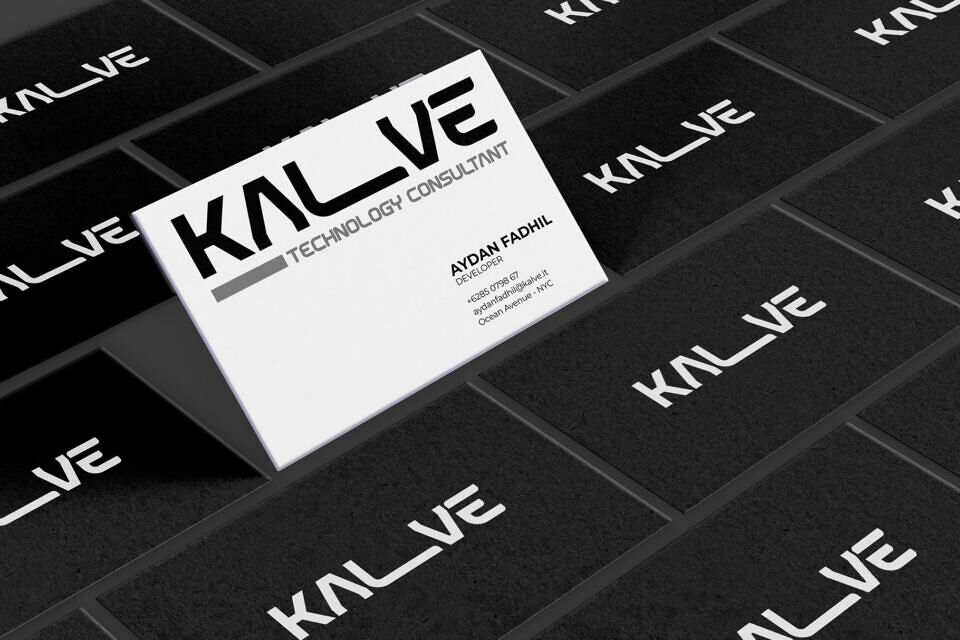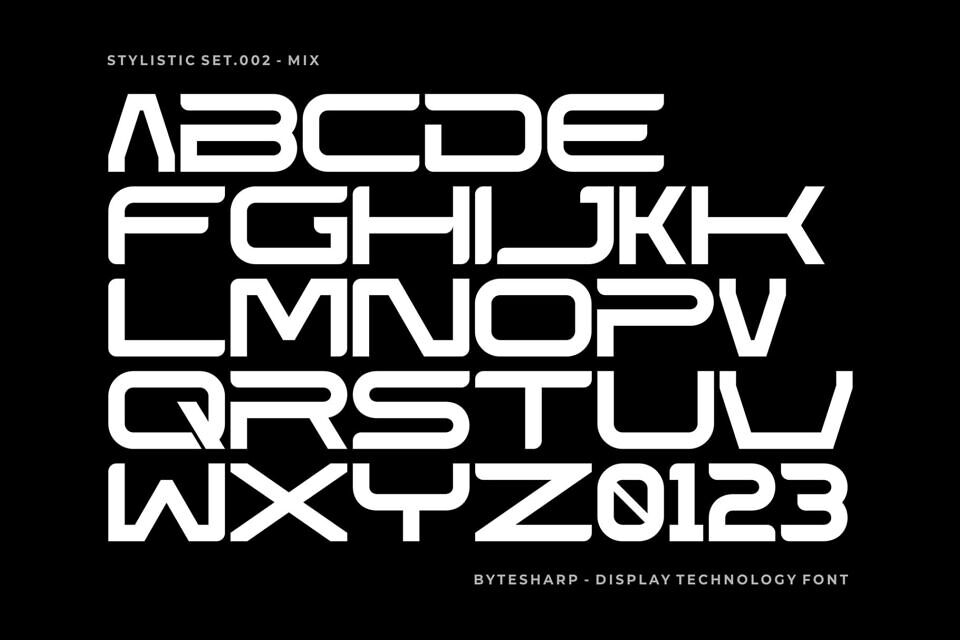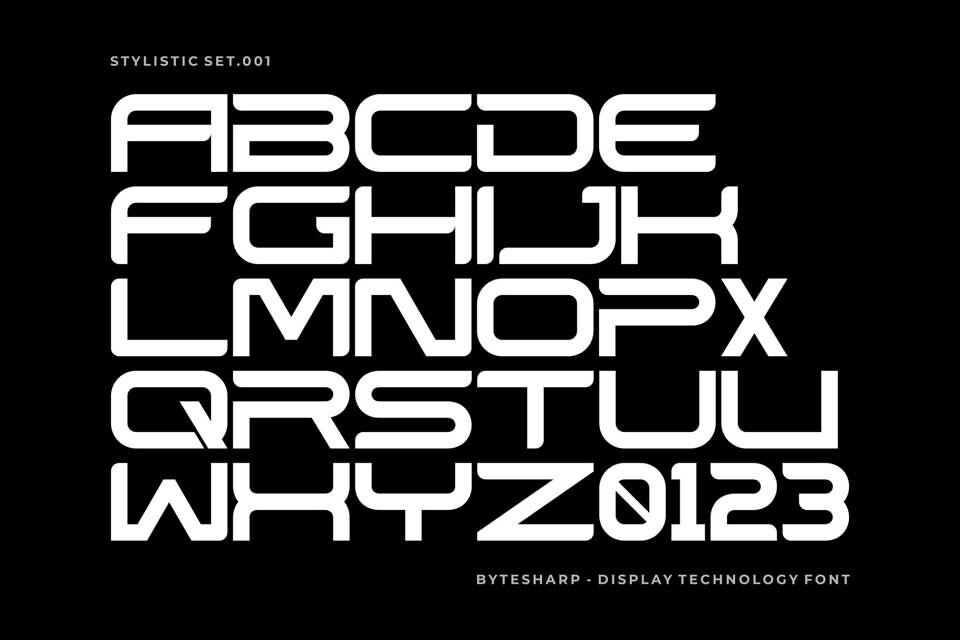
Byte Sharp Font
Byte Sharp is a cutting-edge futuristic techno font designed to inject your work with high-voltage digital energy. With its clean geometry, sharp edges, and cyberpunk soul, Byte Sharp is perfect for high-tech branding, sci-fi titles, user interfaces, and modern posters that demand a bold, forward-thinking look.